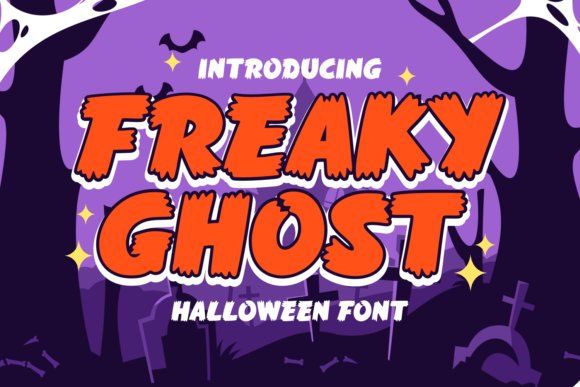
Freaky Ghost: A Bold Display Font for Editorial Halloween Magic
As a publisher who crafts digital magazines, printable workbooks, and branded newsletters, I’ve learned that typography isn’t just about legibility—it’s about tone, timing, and tactile resonance. When October rolls around—or when your brand leans into whimsy, nostalgia, or spirited storytelling—Freaky Ghost becomes more than a font. It’s a deliberate editorial choice: a display typeface with retro playfulness, confident curves, and just enough spectral charm to make readers pause mid-scroll.
Freaky Ghost lives firmly in the display font category—not meant for body text, but built for impact. Its letterforms balance cartoonish exaggeration with refined structure: soft ghostly outlines, subtle bounce in the ascenders, and open counters that breathe on screen and paper alike. It’s not spooky in a horror-movie sense; it’s delightfully eerie—the kind of typeface that winks while wearing a tiny top hat. That duality makes it unusually versatile across editorial contexts where personality matters as much as clarity.
In blog headers and article titles, Freaky Ghost commands attention without shouting. Try it at 48–60px over a muted background for a lifestyle post like “5 Cozy Fall Rituals”—the contrast between its playful weight and serene content creates memorable cognitive tension. For ebook covers, especially seasonal guides (think: Halloween Party Playbook or Spooky Season Planner), it delivers instant genre recognition while feeling fresh—not clichéd. Its rhythm works beautifully in vertical layouts too: chapter openers in coaching workbooks gain warmth and approachability when set in Freaky Ghost above clean body copy.
Newsletter designers will appreciate how Freaky Ghost elevates quote graphics and section dividers. A pull quote rendered in this font—paired with generous line spacing and a soft shadow—feels intentional, not decorative. It signals a moment of emphasis, a breath before the next idea. In printable PDFs—whether wedding checklists, recipe cards, or habit trackers—its boldness holds up crisply in both grayscale and spot-color printing. On mobile, it performs well at headline sizes (28–40px) with sufficient padding, avoiding visual crowding even on smaller viewports.
What sets Freaky Ghost apart from other creative fonts is its editorial discipline. Unlike many script or handwritten fonts, it avoids ambiguity in letterforms—no confusing ls and is, no overly connected glyphs that blur at small scales. It includes stylistic alternates and ligatures that add polish without sacrificing consistency. While it doesn’t offer multiple weights, its single robust weight is carefully tuned for display use: thick enough to anchor hierarchy, light enough in spirit to avoid heaviness. Multilingual support covers Western European languages, making it suitable for bilingual printables or global-facing digital magazines.
Pairing is where Freaky Ghost shines editorially. Use it with a warm serif font—like Crimson Text or EB Garamond—for body copy in long-form ebooks or digital magazines. The contrast grounds the playfulness while preserving elegance. For modern newsletters or minimalist guides, pair it with a neutral sans serif—Inter, Lato, or Manrope—for captions, navigation links, and subheads. Avoid pairing it with other display fonts or overly decorative scripts; its personality needs breathing room. And never force it into paragraphs: it’s not a body font, and using it that way undermines both readability and its own expressive strength.
I’ve used Freaky Ghost across several real projects: a digital zine on autumnal creativity (cover + section headers), a printable “Haunted House Bingo” worksheet for educators (title + instruction callouts), and a seasonal newsletter series for a wellness brand (headline + featured quote banners). Each time, it reinforced brand voice without overwhelming content. Readers commented on the “fun but not childish” tone—and that’s exactly the sweet spot for thoughtful editorial design.
Readability considerations are practical, not theoretical. On screen, ensure sufficient contrast against backgrounds—especially important for accessibility compliance. In PDF exports, embed the font fully to preserve rendering across devices. For print, confirm that your printer supports OpenType features if you’re using alternates. And always test scaling: Freaky Ghost gains charm at larger sizes but loses definition below 24px, so reserve it strictly for headings, logos, quotes, and cover art.
Ultimately, Freaky Ghost supports more than seasonal themes—it supports intentionality. When your publication values mood as much as message, when your audience responds to warmth over sterility, and when your design choices reflect care down to the baseline alignment, this display font earns its place in your toolkit. It doesn’t solve layout problems alone—but paired with strong grid systems, thoughtful whitespace, and empathetic writing, it helps turn functional content into something readers remember, share, and return to.
Whether you’re designing a limited-run magazine cover, scripting a holiday email sequence, or branding a new digital course on mindful creativity, Freaky Ghost offers a rare blend: retro confidence, editorial clarity, and quiet magic. Not every font invites collaboration—but this one does.